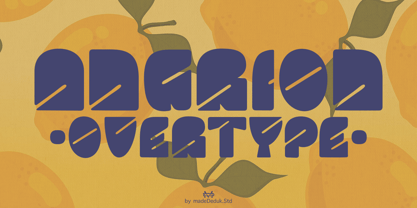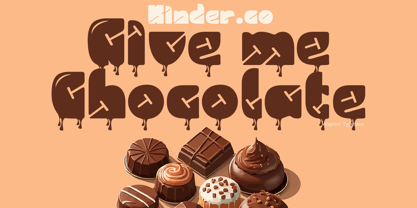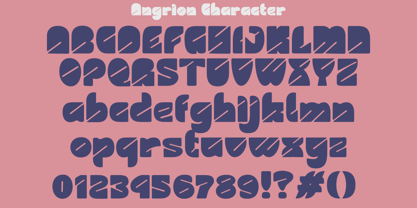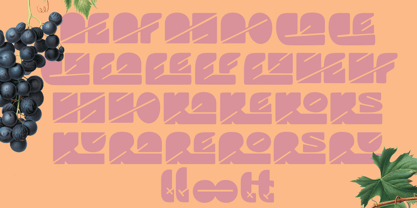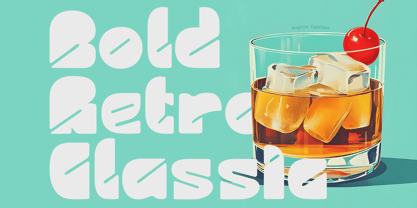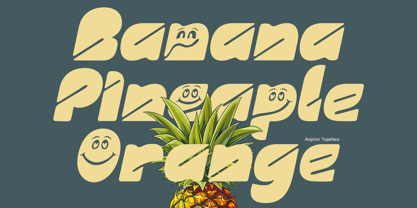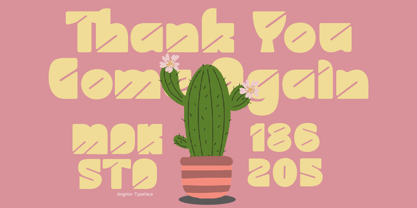
Angrion
by madeDeduk
The Angrion Font Family was designed by madededuk and published by madeDeduk. Angrion contains 2 styles and family package options. More about this family
Introducing Angrion, a bold and rounded font that infuses a warm and friendly vibe into every word. Ideal for designs aiming for a fun, playful, and memorable aesthetic, it adds a delightful touch of charm and cheer to any project. This versatile font is perfect for various applications, including book titles, branding, product packaging, invitations, quotes, labels, posters, and logos. With its range of weights and OpenType features, Angrion stands out as a powerful choice for creative endeavors, ensuring your designs capture attention and leave a lasting impression.
Designers: madededuk
Foundry: madeDeduk